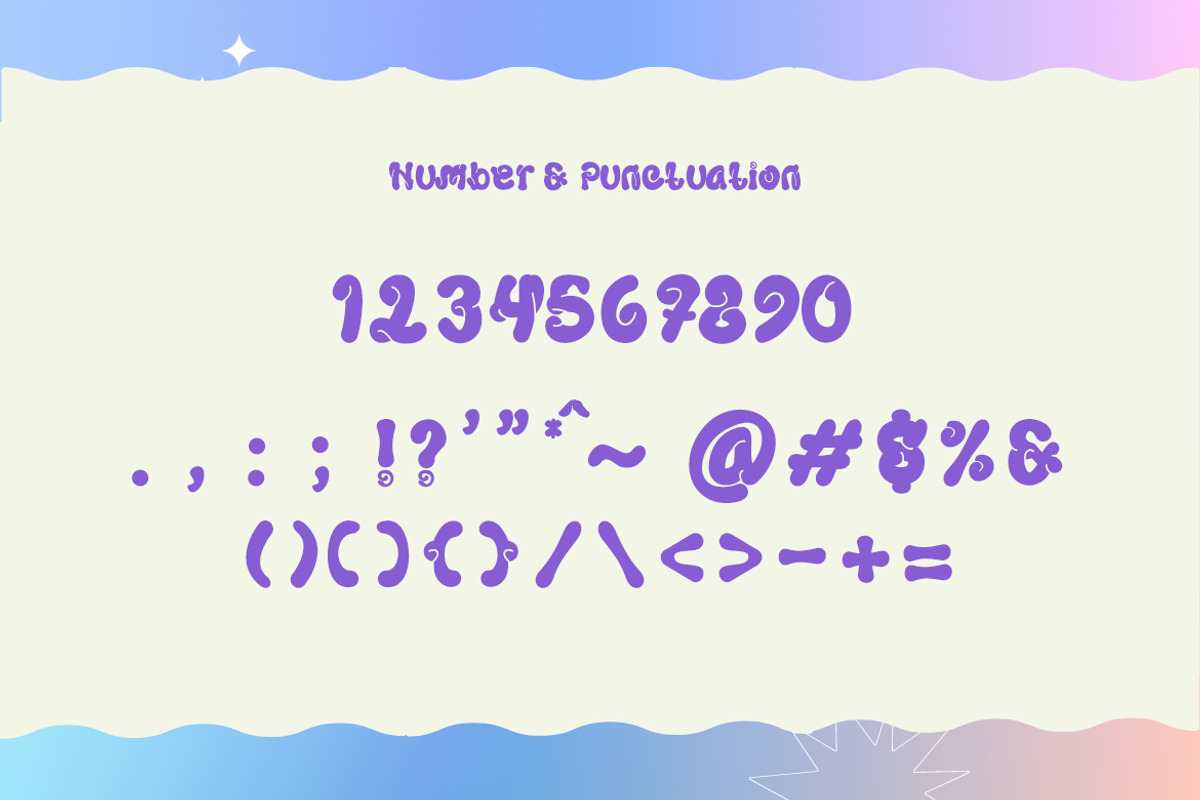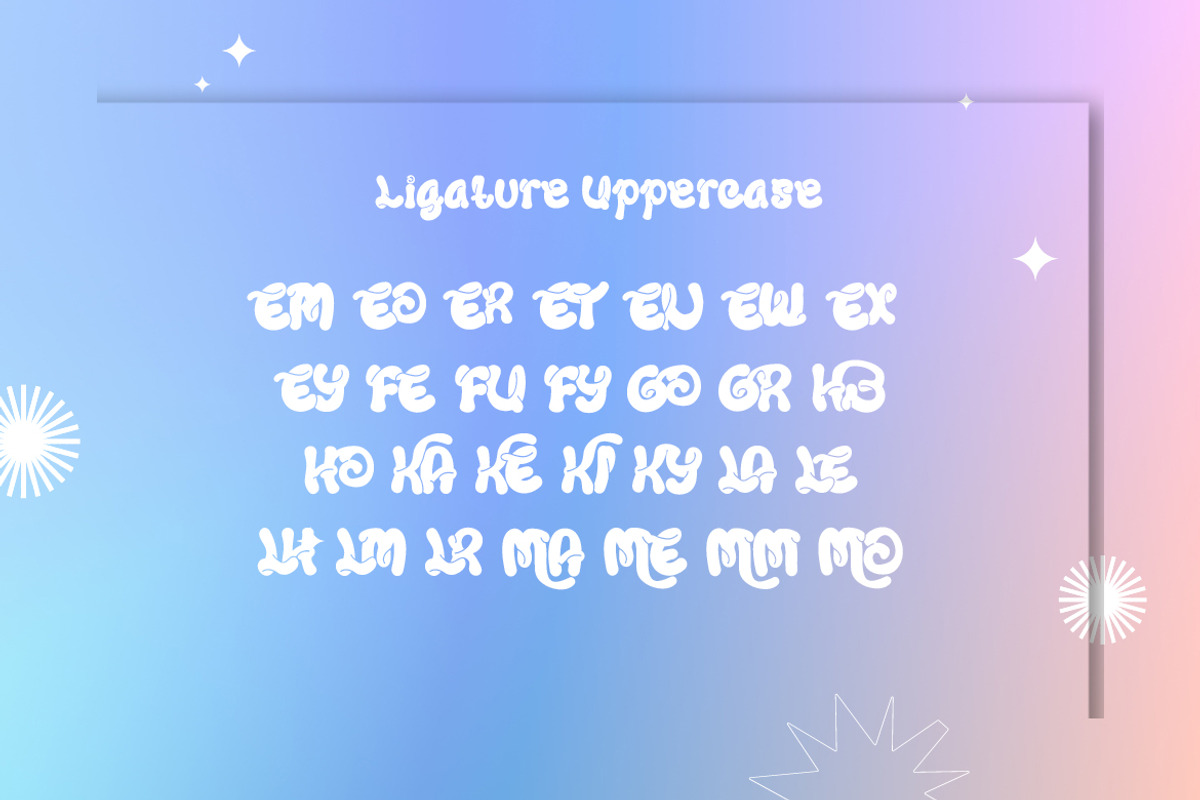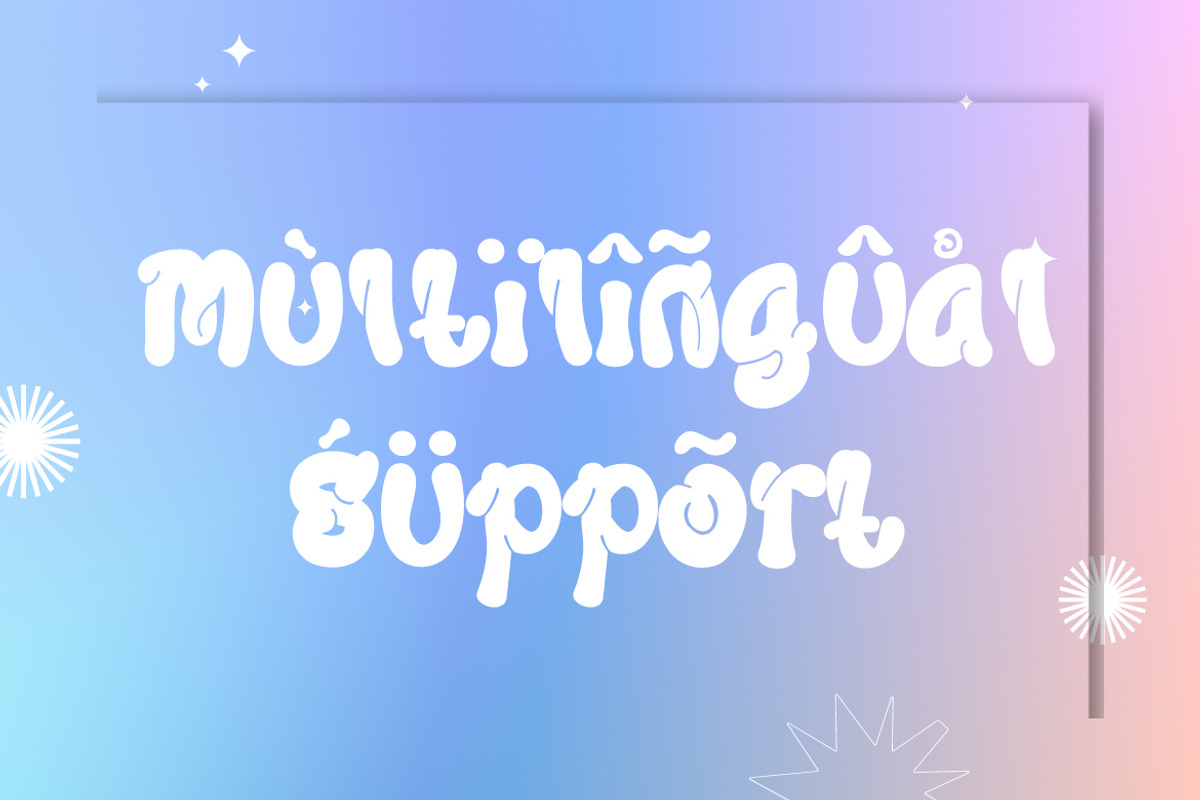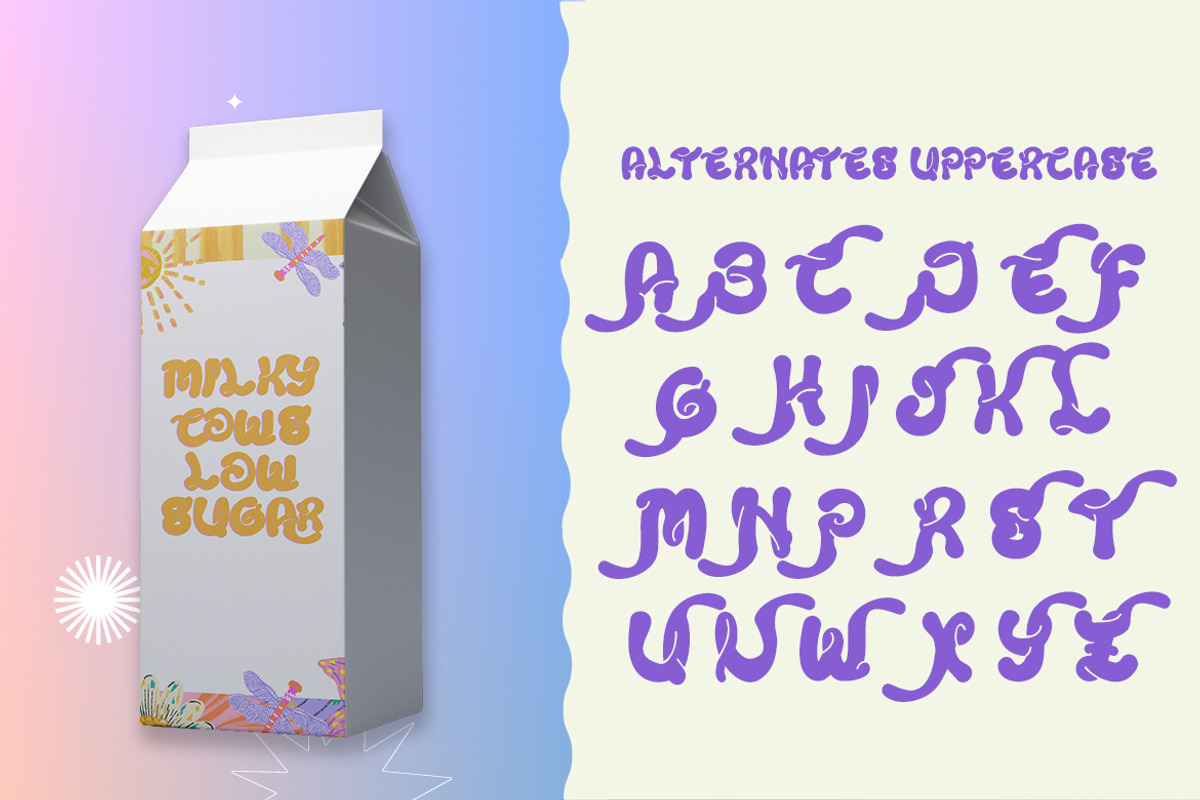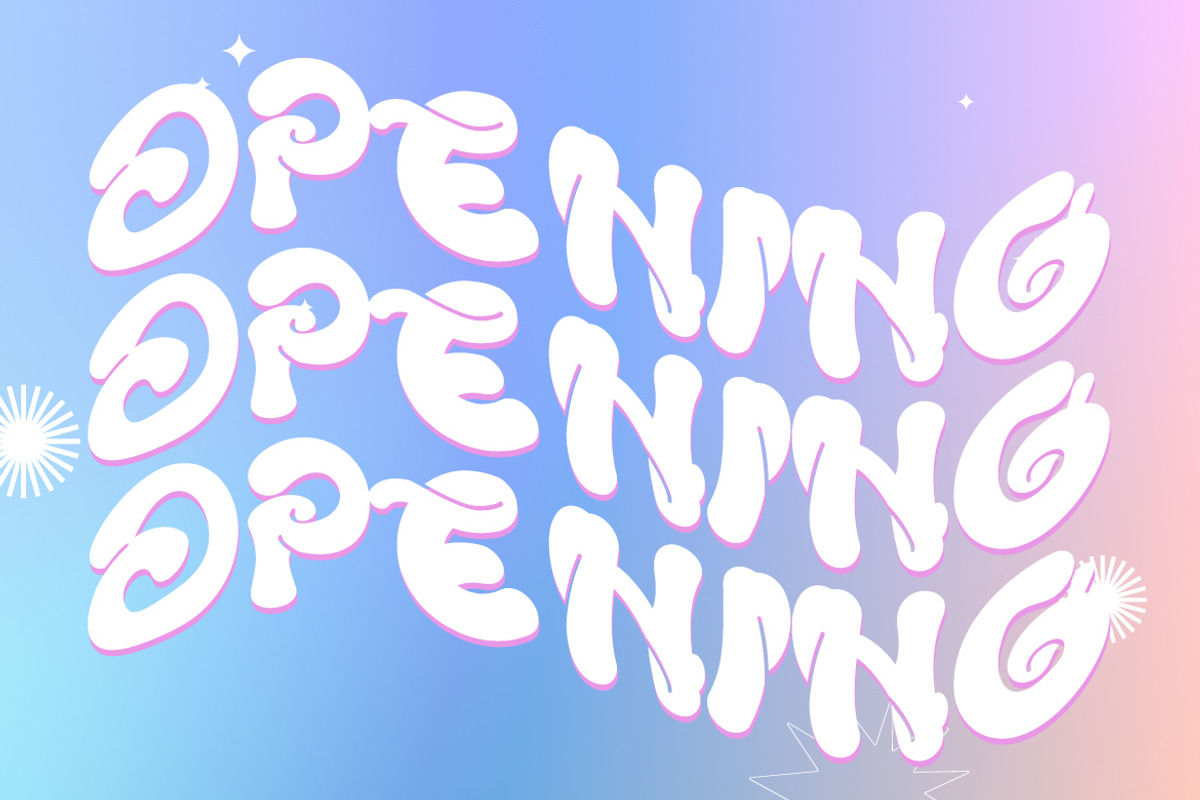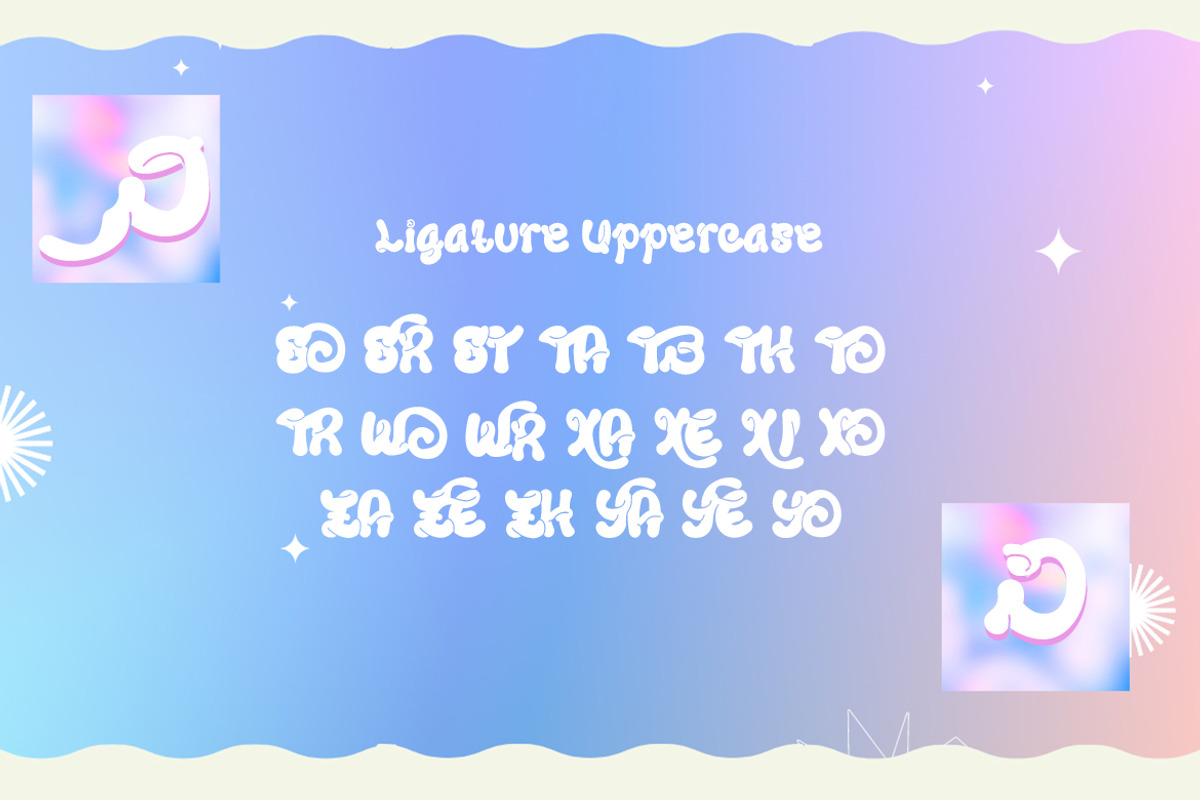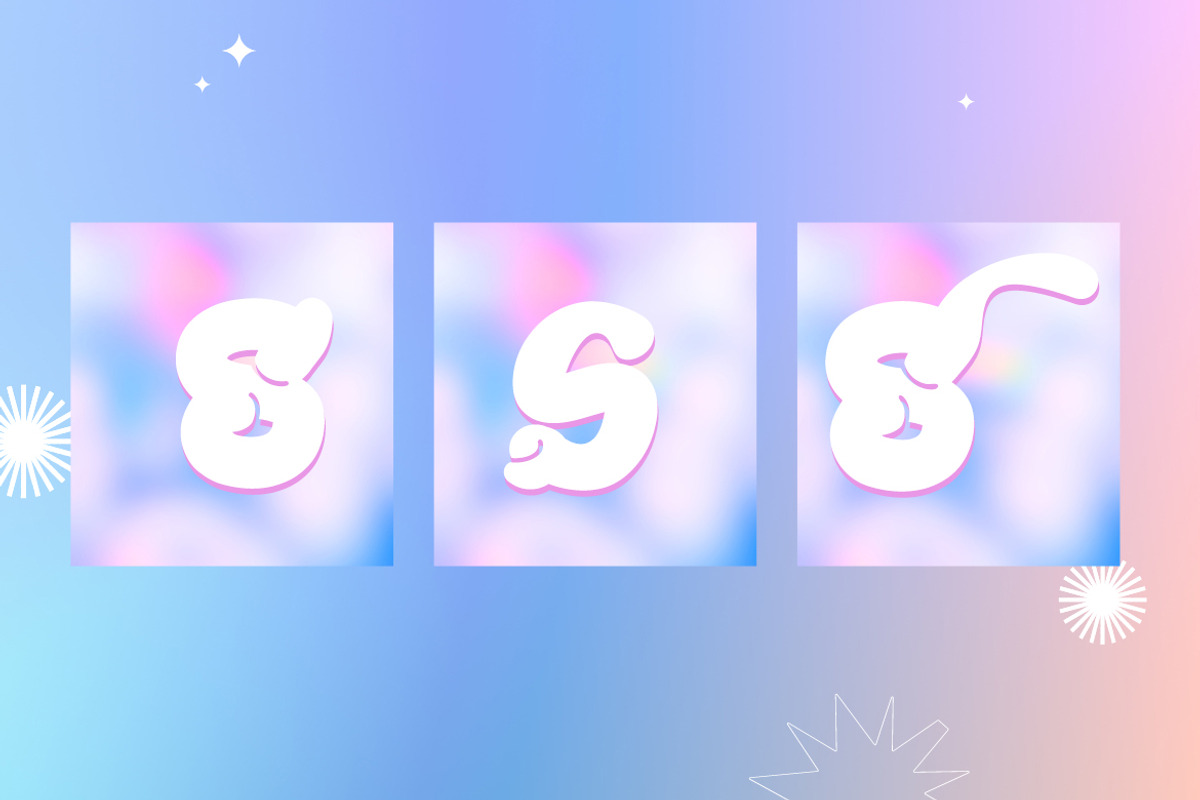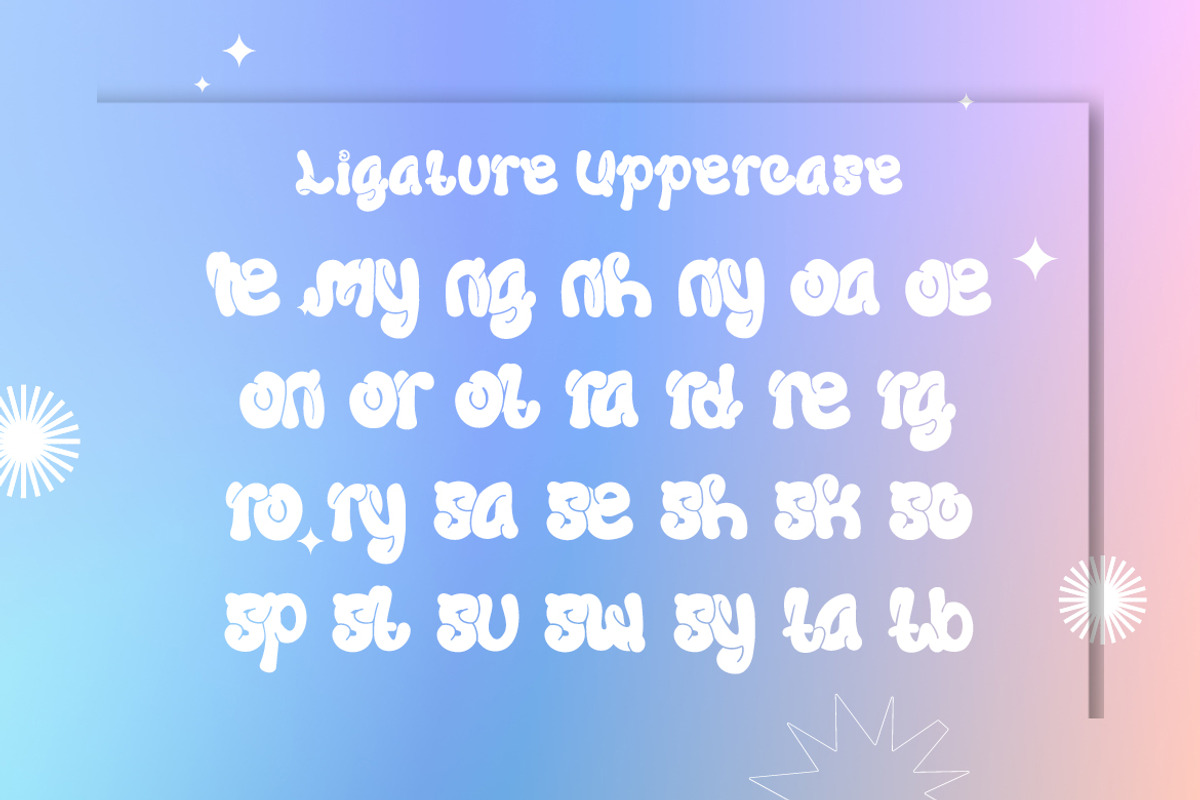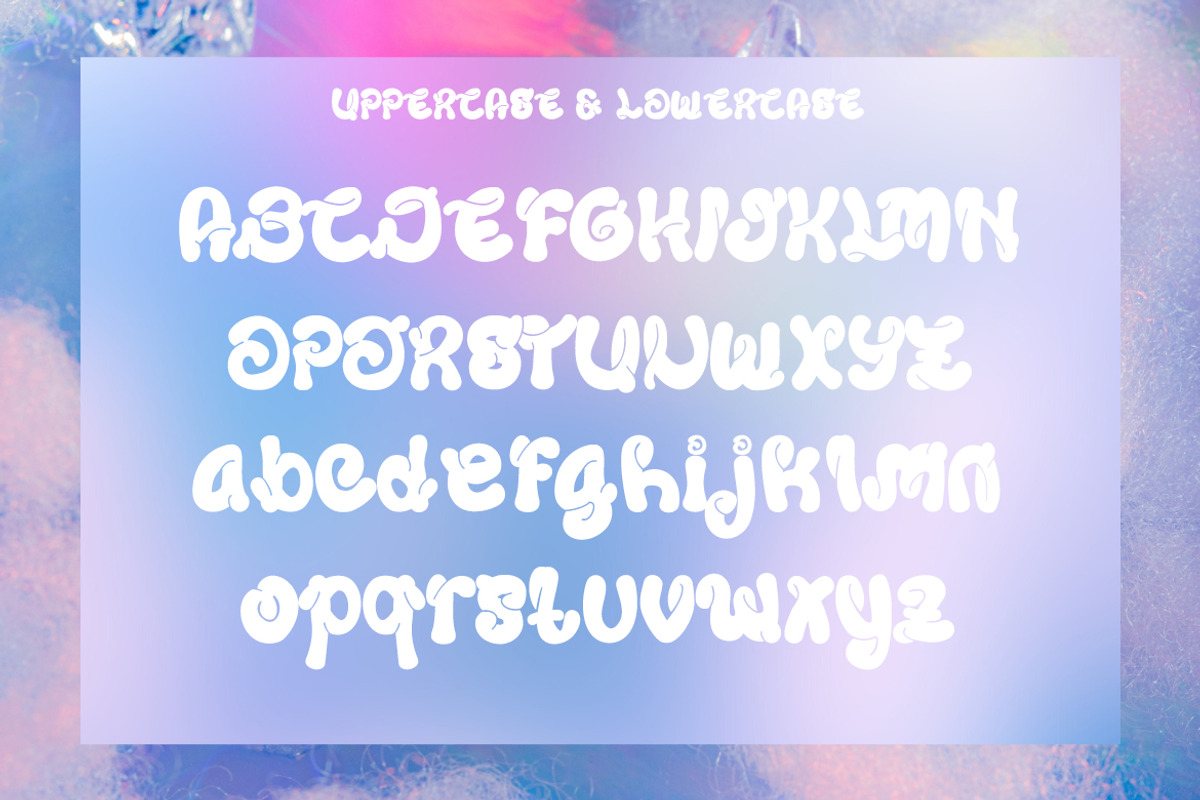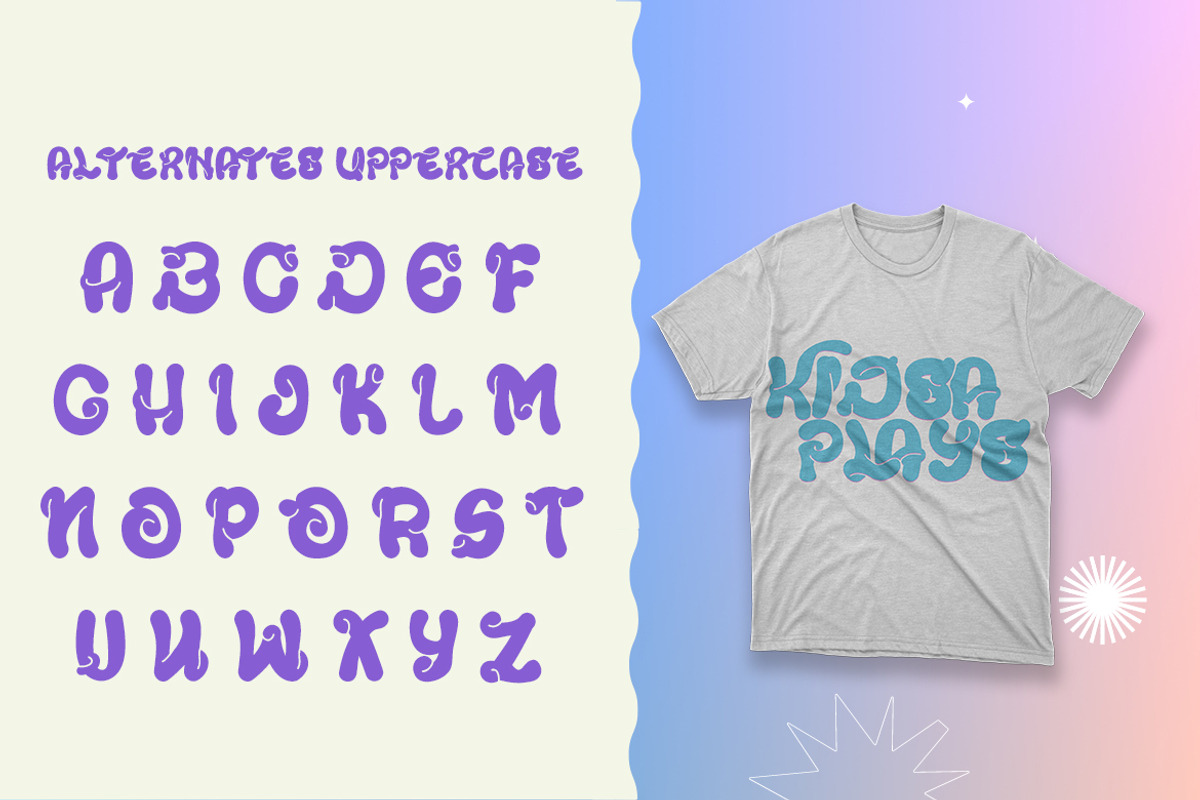
Kidsa Plays - Loop Vintage Font
Introducing Kidsa Plays - Loop Vintage Font
This Font is a delicate, elegant and flowing handwritten font. It has beautiful and well as a unique blend of ligatures a letter, so that the authors compose it with a and little swirly embedding, so that a modern font is formed and ready to make a statement by adding elegant and unique flair to your next design project. Add it to your most creative ideas and notice how it makes them come alive!
• Ligature and Alternate